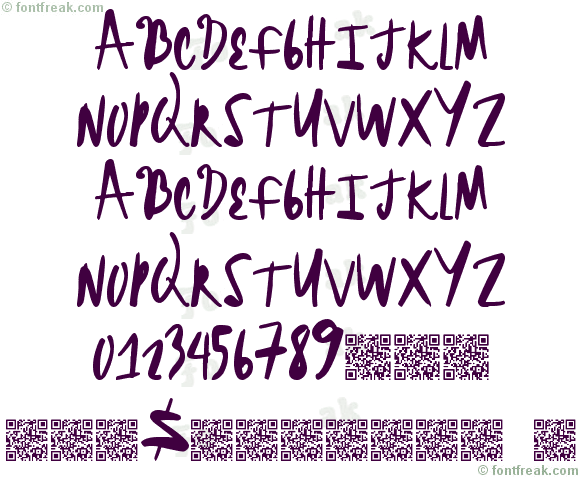
BrightHeadline
About BrightHeadline
BrightHeadline, created by XEROGRAPHER FONTS in 2013, is an eye-catching display font that combines playful aesthetics with a bold personality. This font leans towards a handwritten style, characterized by its unique, irregular strokes that exude a sense of spontaneity and creativity. The stroke weight is variable, adding a dynamic quality to the text, while the overall spacing is generous, enhancing readability and allowing each character to breathe.
With its distinct visual characteristics, BrightHeadline is an excellent choice for a variety of applications. Its vibrant and casual vibe makes it particularly suitable for wedding invitations, where a touch of whimsy is desired. Additionally, this font shines in movie posters, where its boldness can create a striking impact and capture attention. Restaurant menus can also benefit from BrightHeadline's playful nature, making them engaging and inviting. Furthermore, social media graphics and promotional materials for small businesses will find that this font draws in customers with its fun and approachable style.